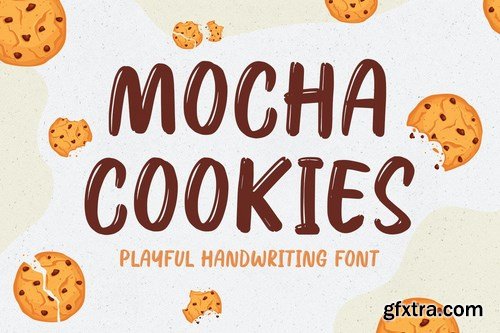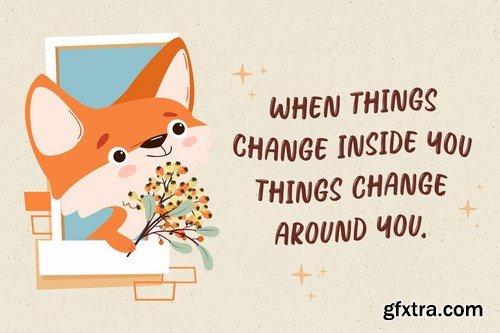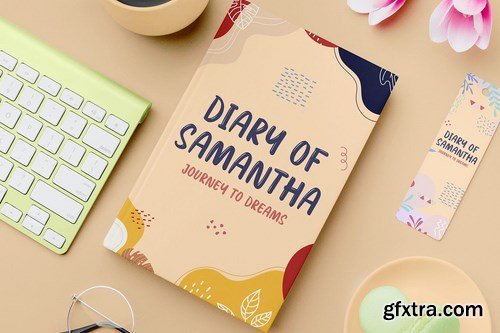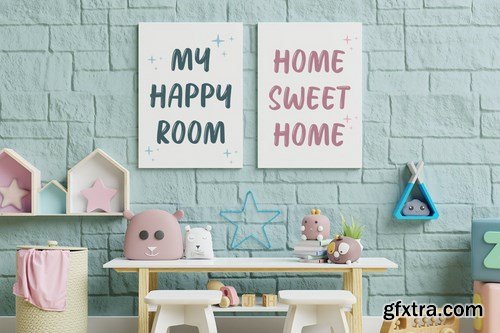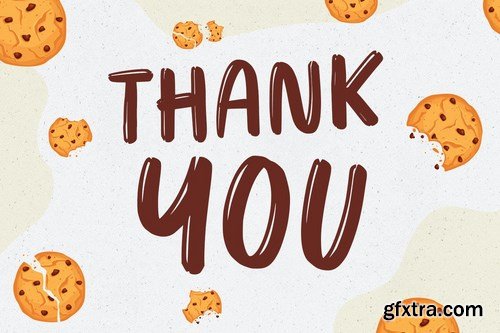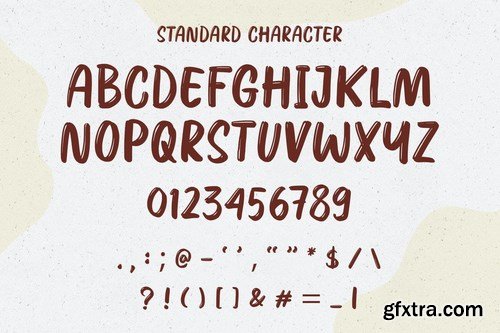
Mocha Cookies is a playful and sweet display font. This enchanting font will turn any creative idea into a true standout.
Mocha Cookies would be perfect for logos & branding, photography, watermark, social media posts, advertisements, invitation, product designs, label, stationery, wedding designs, product packaging, special events or anything that need handwriting taste. We highly recommend using a program that supports OpenType features and Glyphs panels such as Adobe Illustrator, Adobe Photoshop CC, Adobe InDesign, or CorelDraw, so you can see and access all Glyph variations.